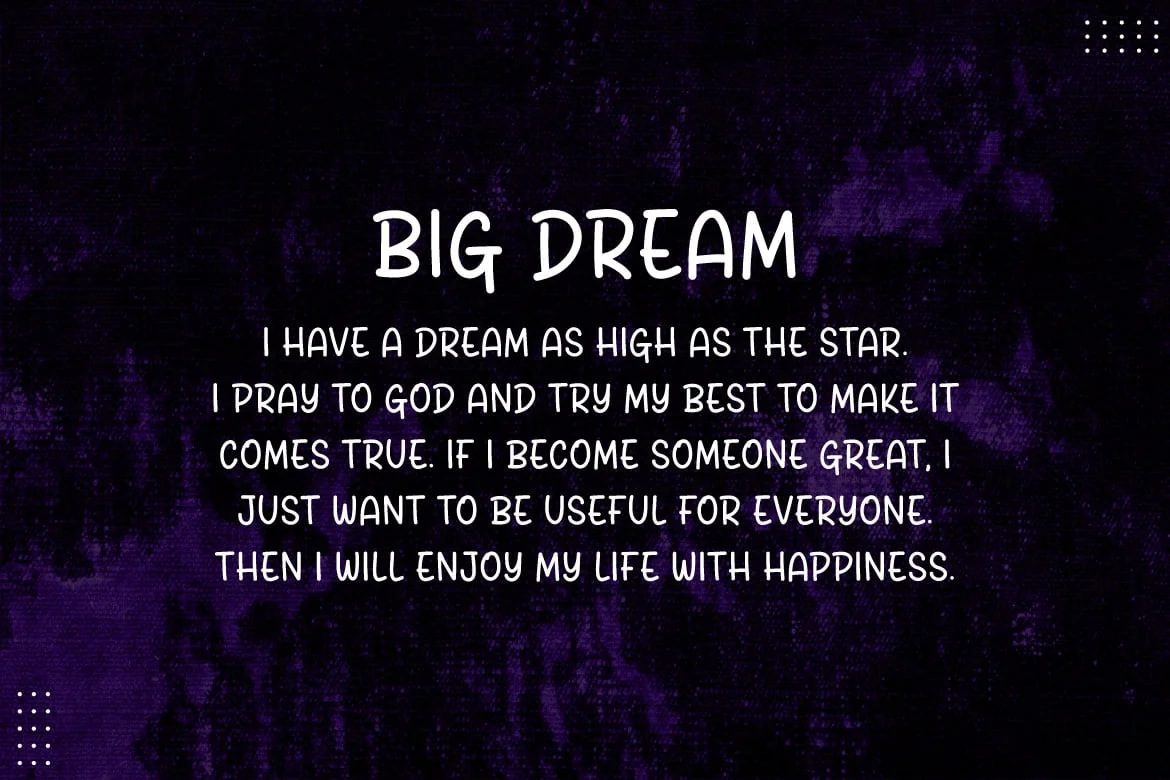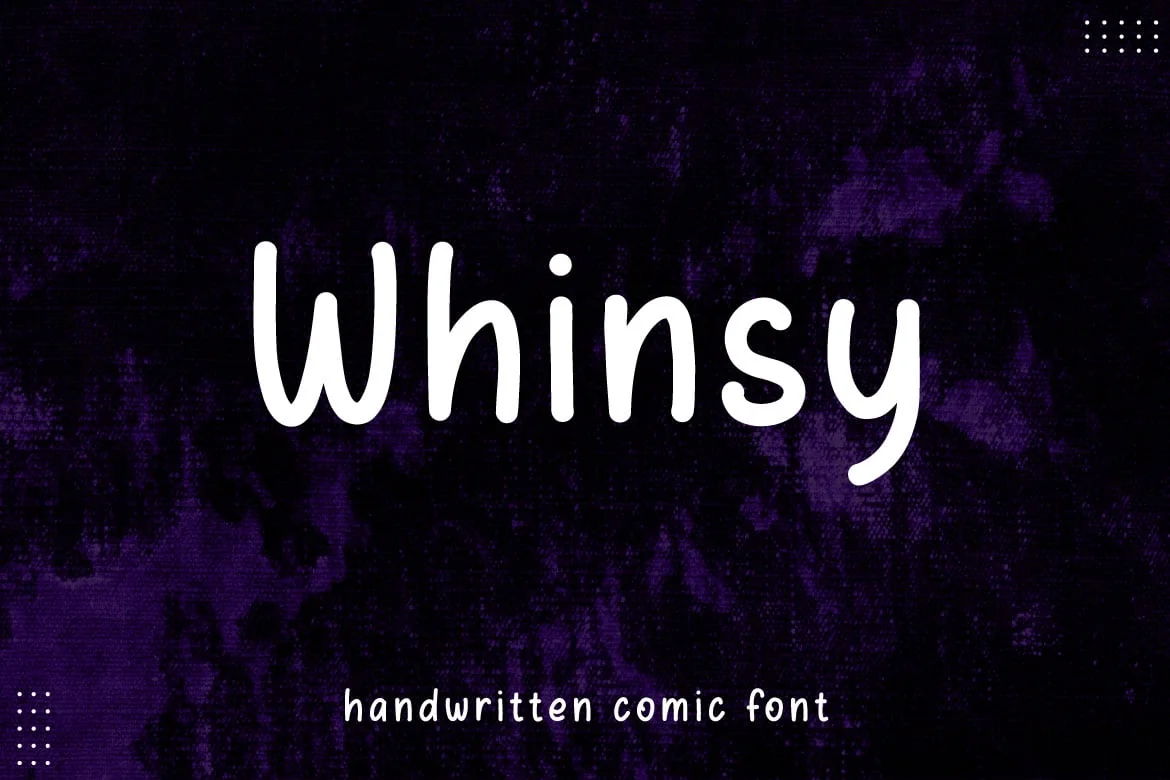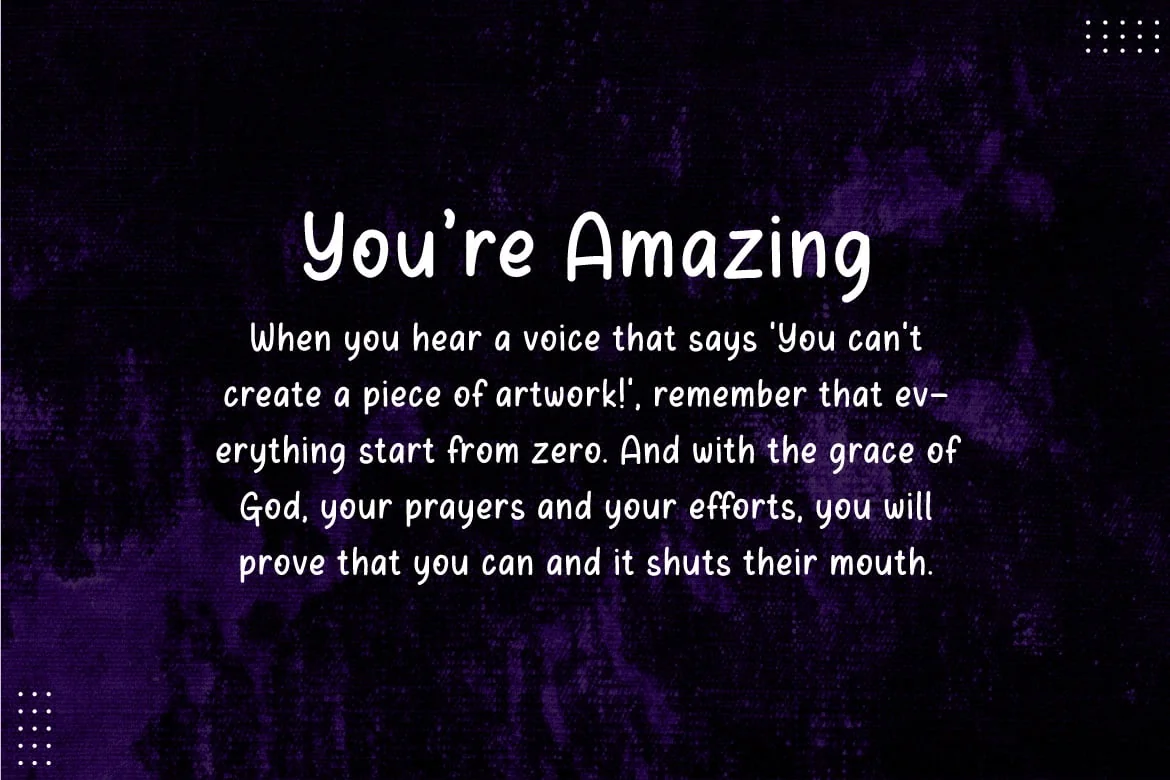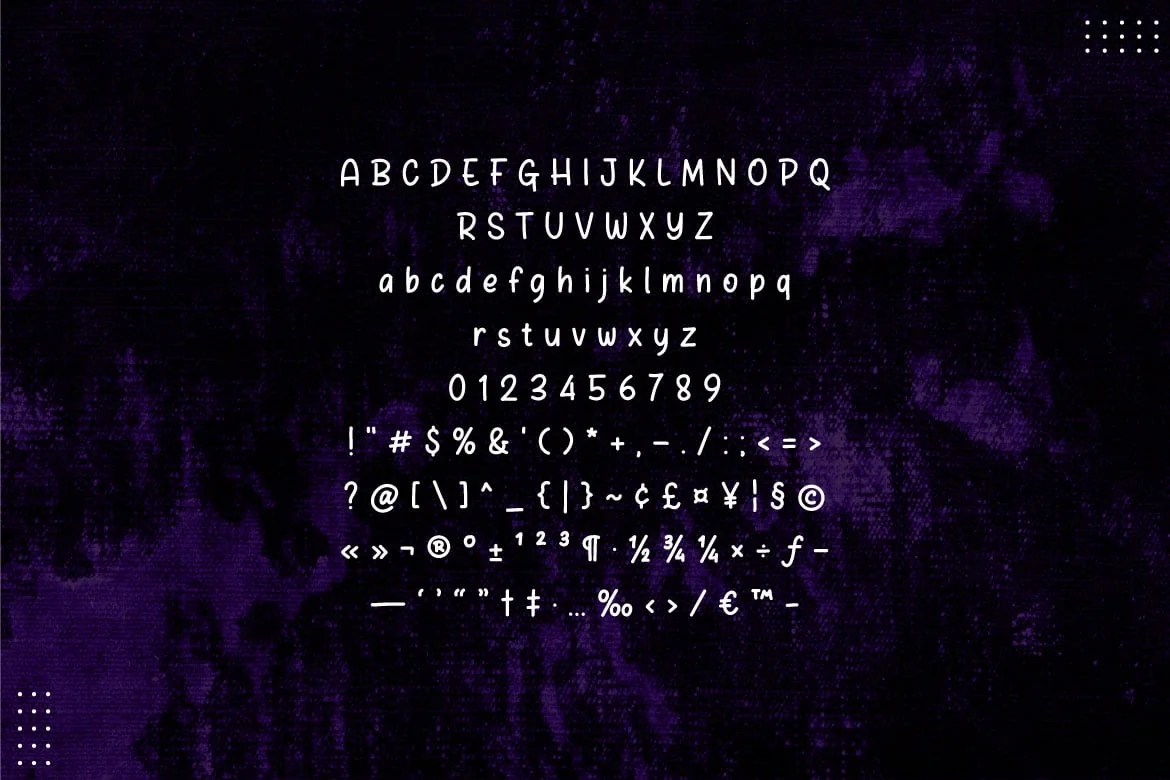
Whinsy – Minimalist handwritten comic font
Hello! Whinsy is a minimalist handwritten comic font.
Whinsy can be used in any works such as comic book, poster, school, flyer, book title, advertisement, social media content, logo and many more.